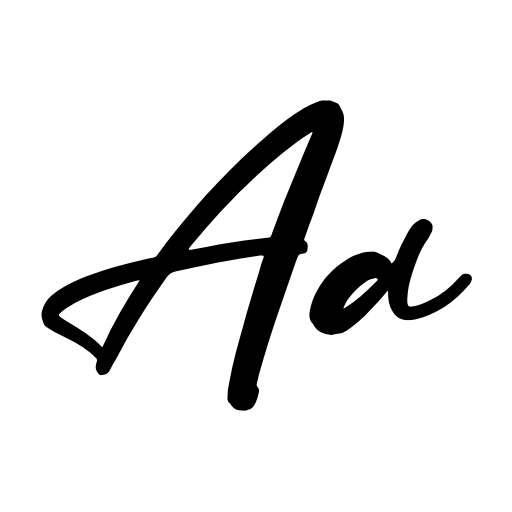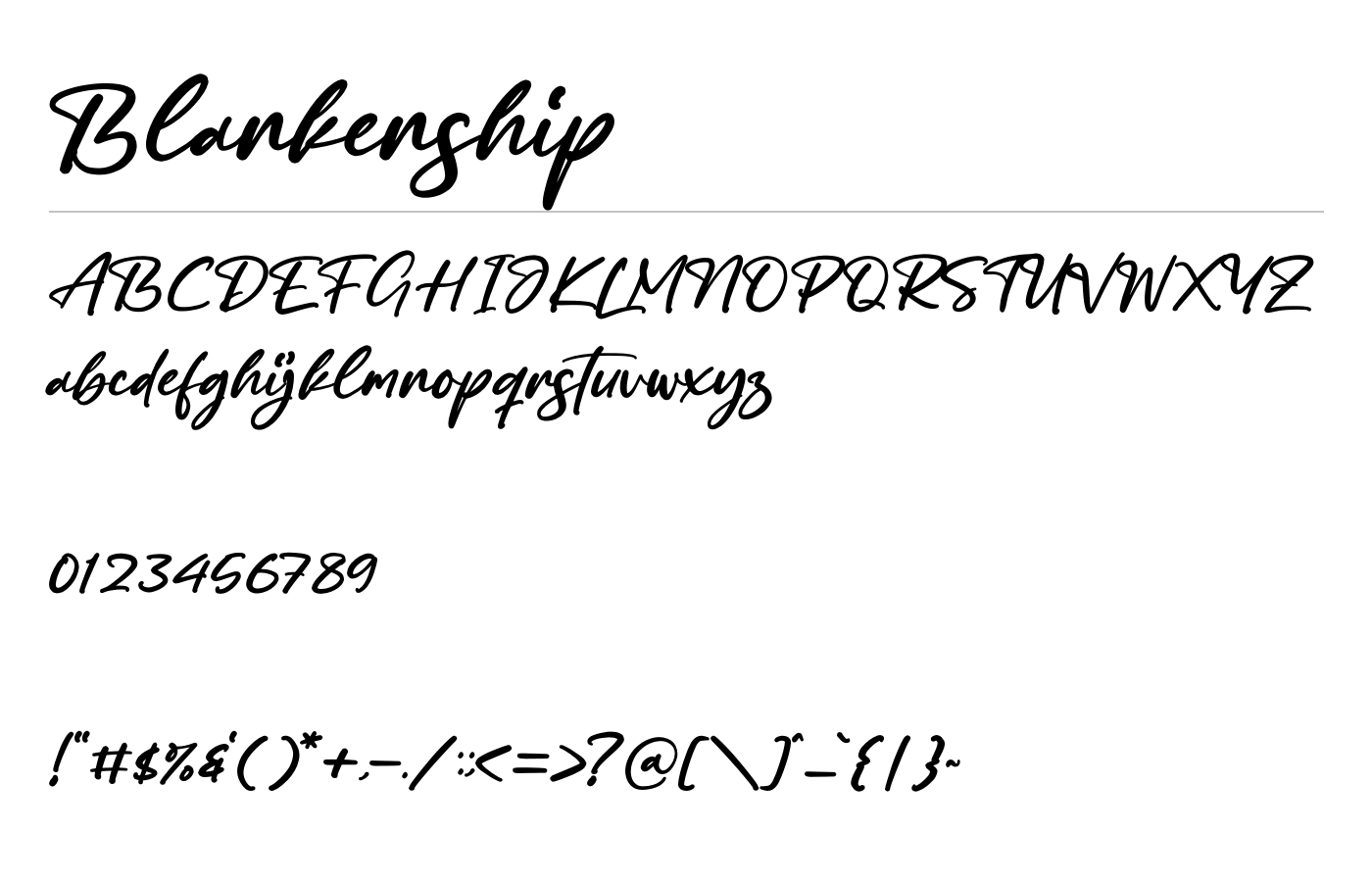
Blankenship is a lively and elegant script font with smooth, brush-like strokes that give it a natural, handwritten feel. Its medium weight and slightly condensed letterforms make it perfect for adding a personable yet polished touch to branding, invitations, and editorial headlines. This font works well where a friendly, modern, and stylish impression is desired.
Blankenship Font
About Blankenship Font